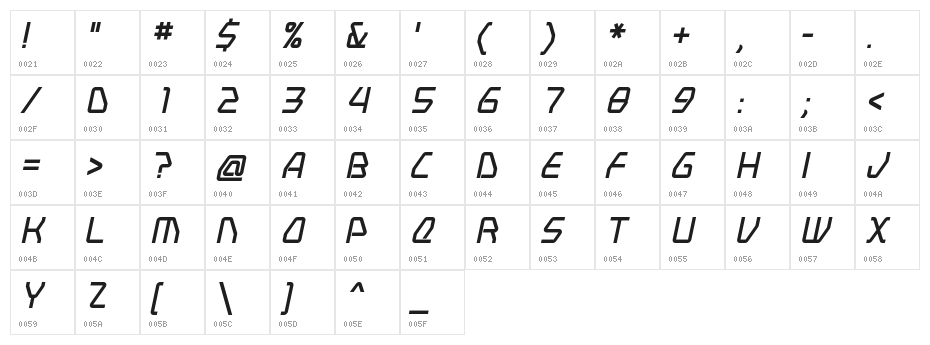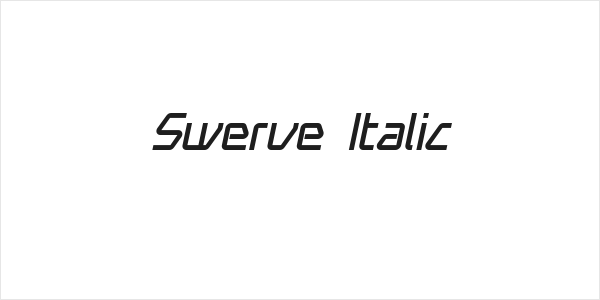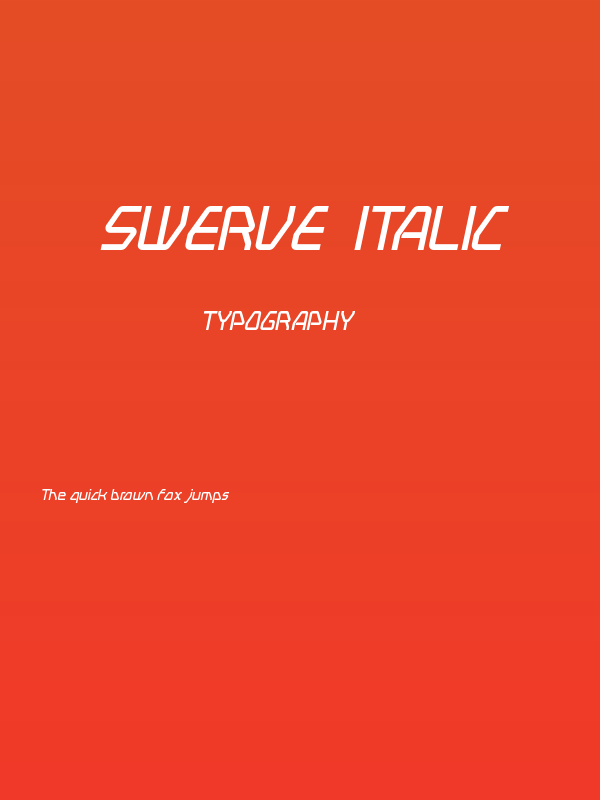
Swerve Italic Font
Swerve Italic Description
This font features a modern, italicized style with a distinct geometric structure. Each character is crafted with sharp angles and clean lines, creating a futuristic and dynamic appearance. The uppercase and lowercase letters maintain a consistent slant, enhancing the italic effect. The numerals and special characters follow the same design principles, ensuring uniformity across the typeface. The font's bold strokes and angular shapes make it stand out, while the spacing between characters is balanced, providing readability and visual appeal.
| Use Case | Logos, Headlines, Branding |
| Proposed Projects | Ideal for tech branding, futuristic designs, sports team logos, and dynamic advertising materials. |